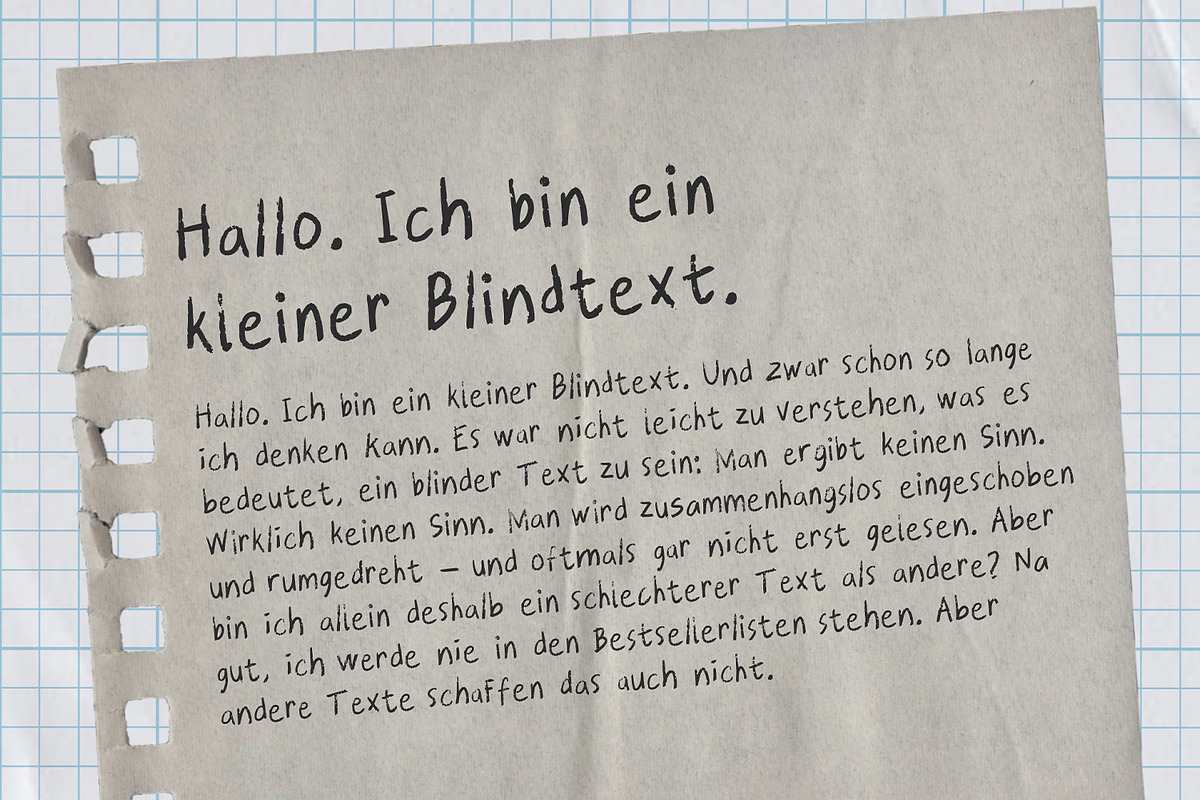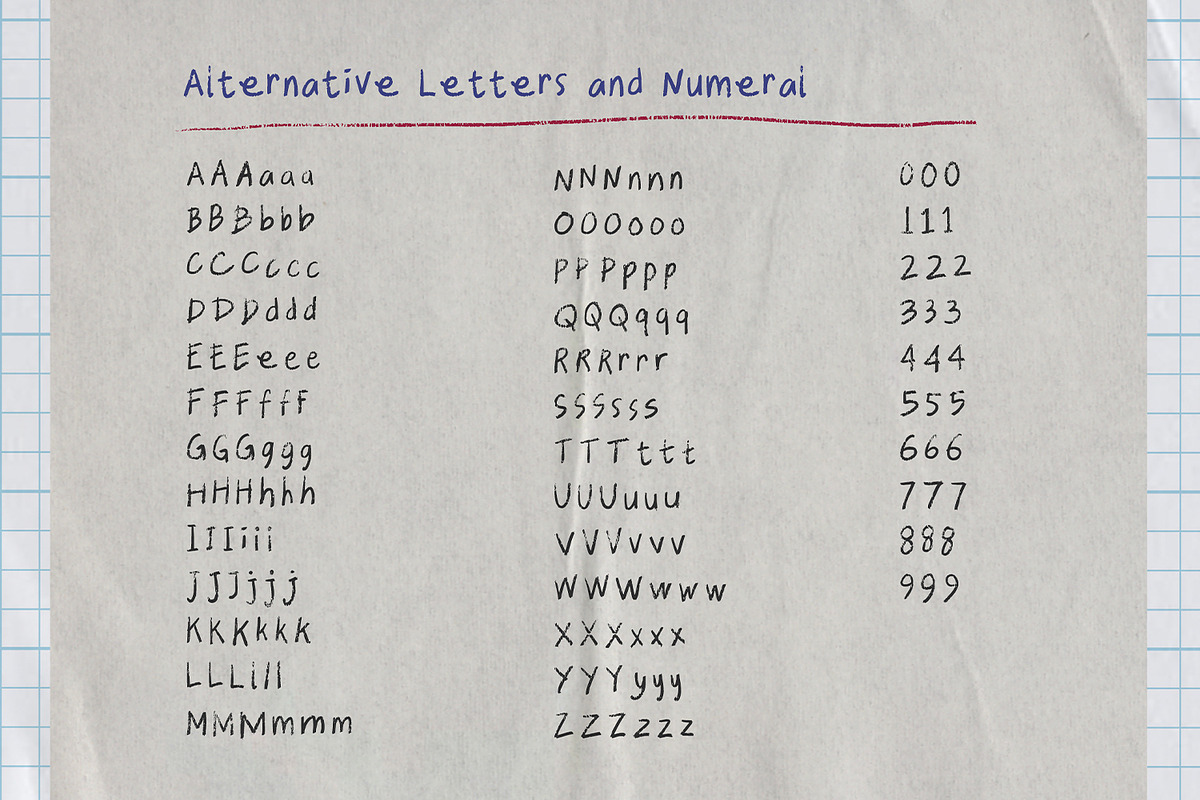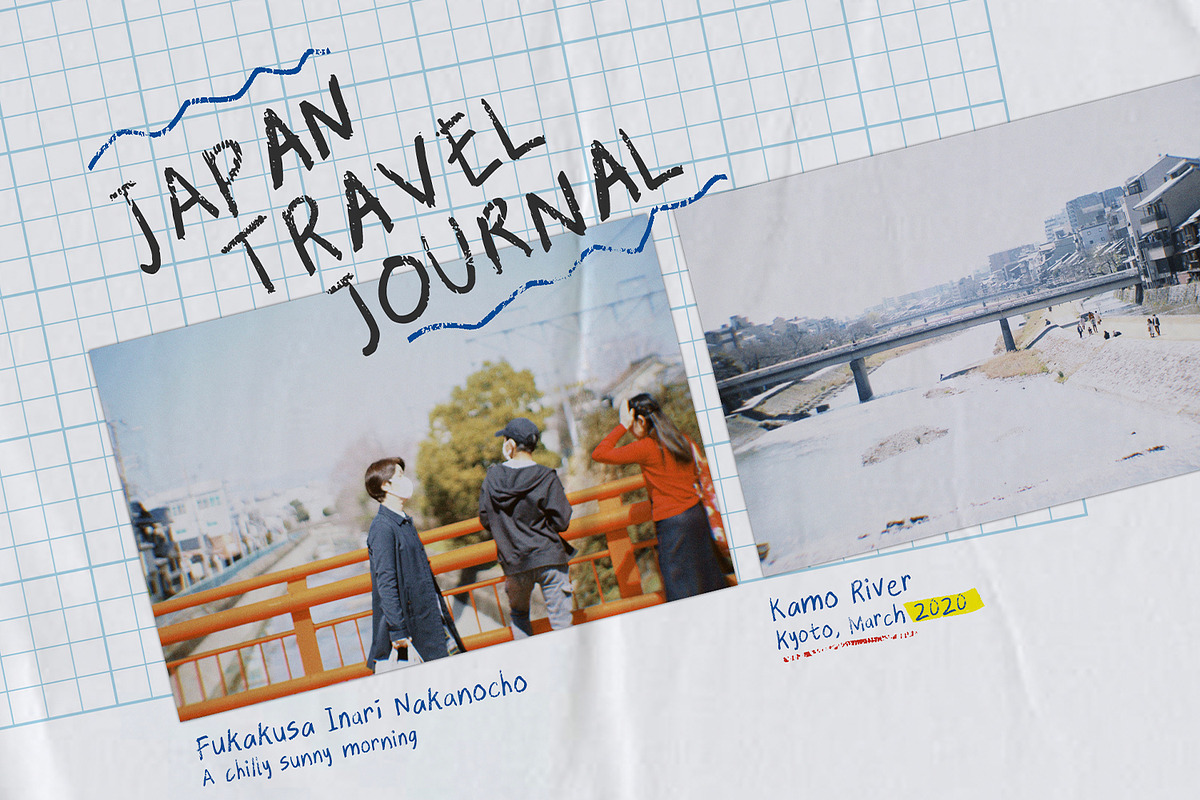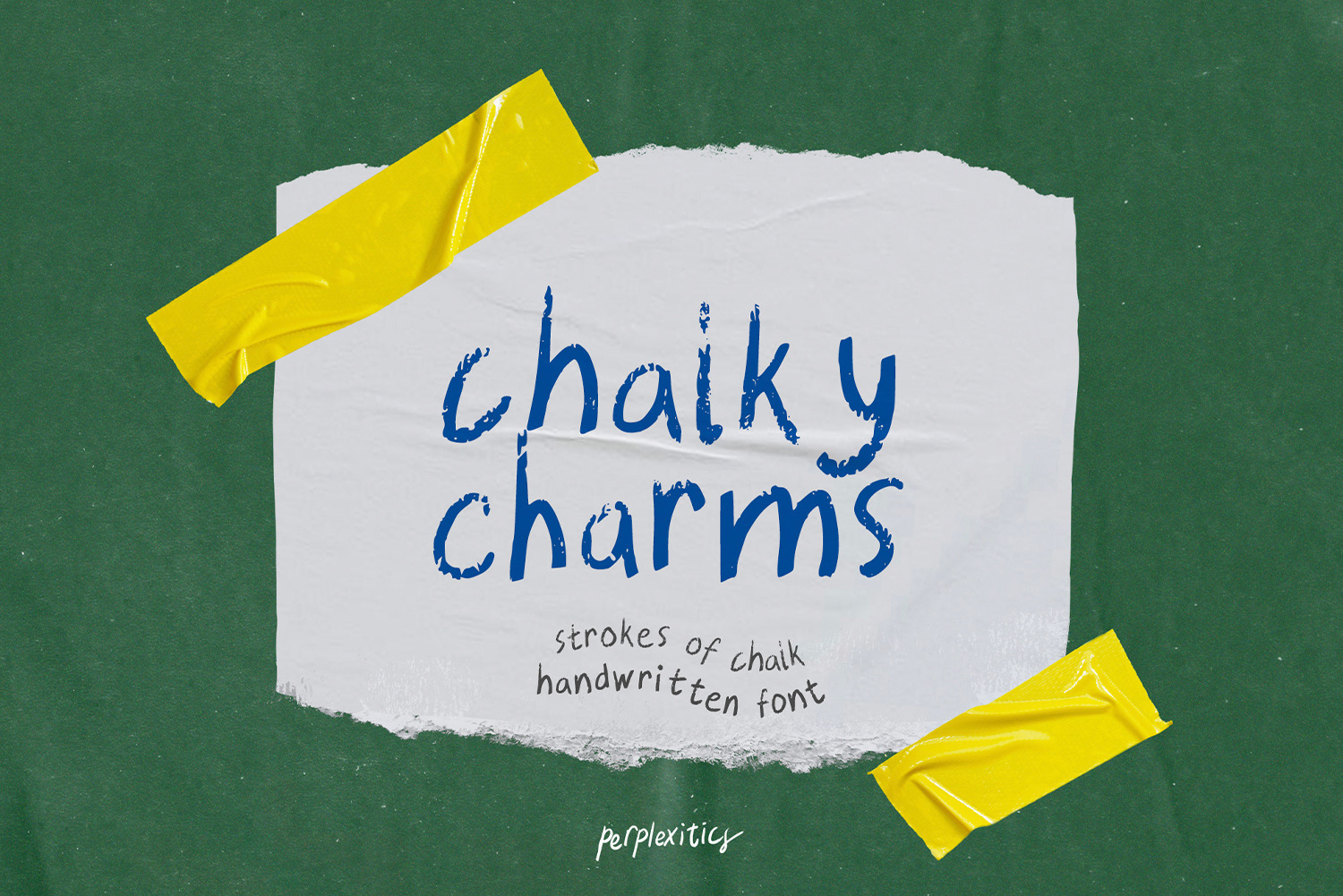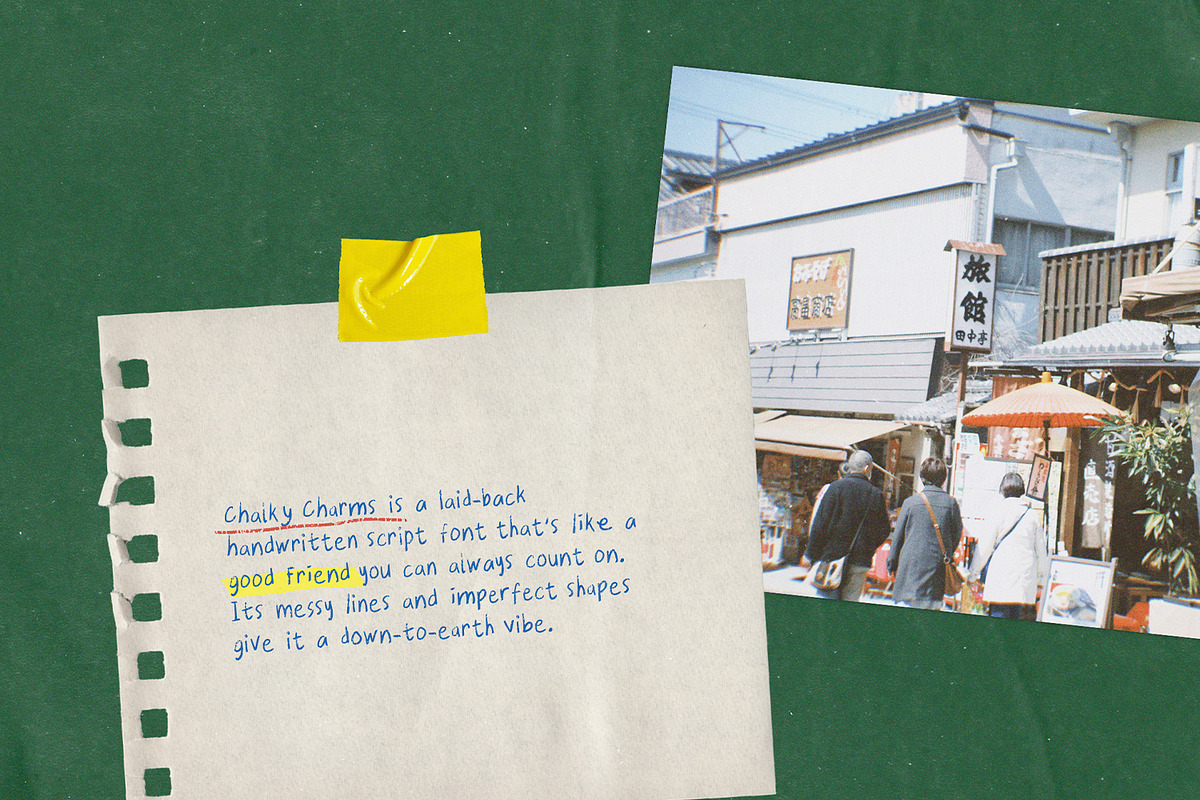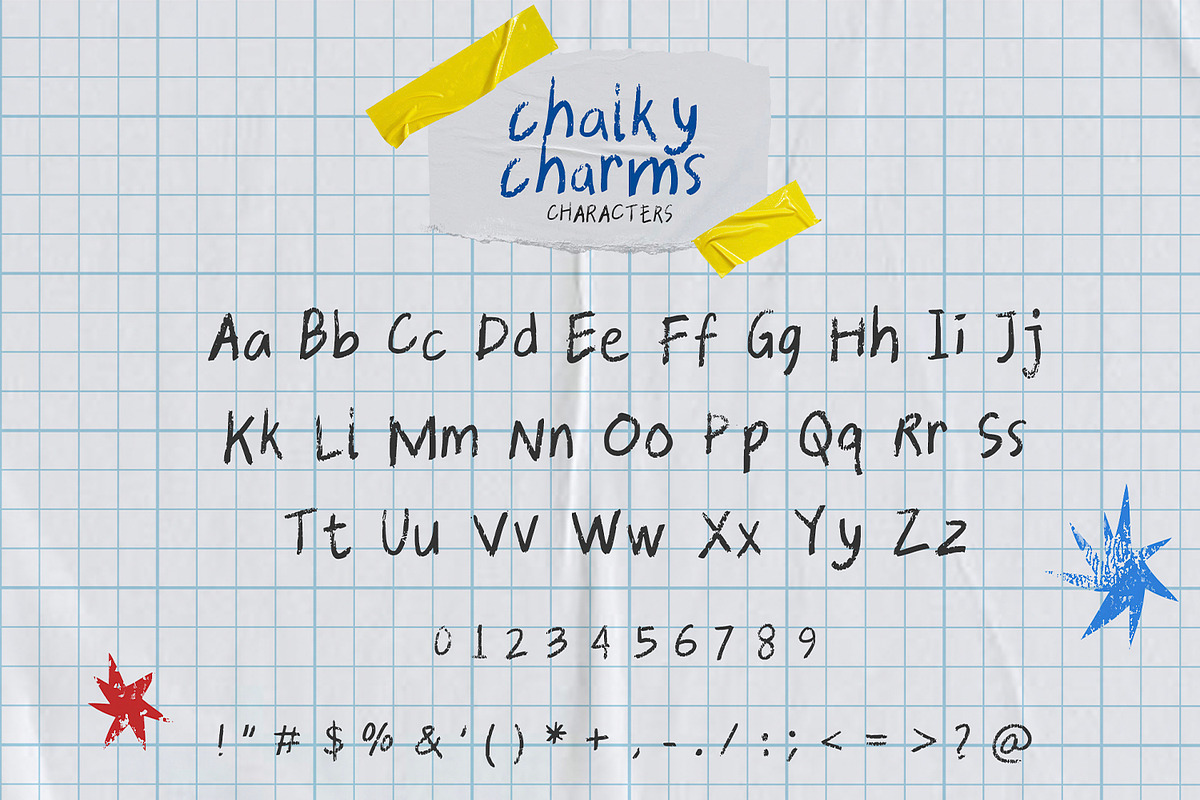
Chalky Charms Handwritten Font
Chalky Charms is a laid-back handwritten script font that's like a good friend you can always count on. Its messy lines and imperfect shapes give it a down-to-earth vibe. This font is perfect for projects that need a casual, friendly, and hand-drawn aesthetic.
Chalky Charms Font is packed with everything you need, including uppercase and lowercase letters, numbers, and punctuation. Consists of 246 glyphs and alternate characters.